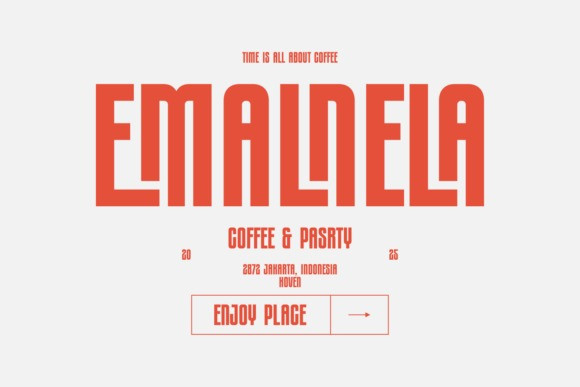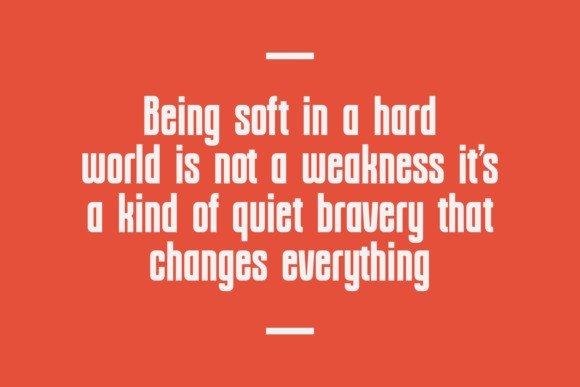
Hilmutolan Font
Hilmutolan Font, a new sans serif display font from the year 2025. The font is characterized by its heavy, condensed, and geometric letterforms, giving it a powerful and impactful presence ideal for headlines and posters.